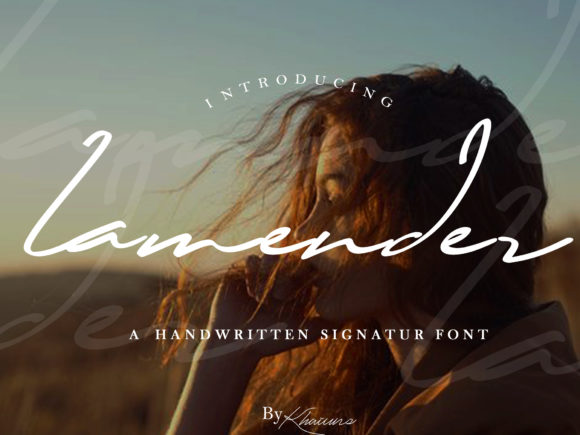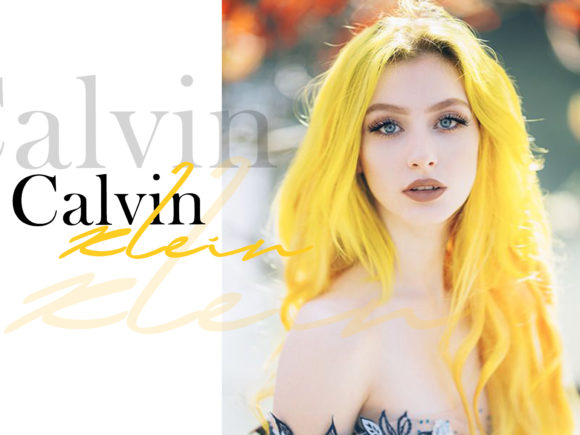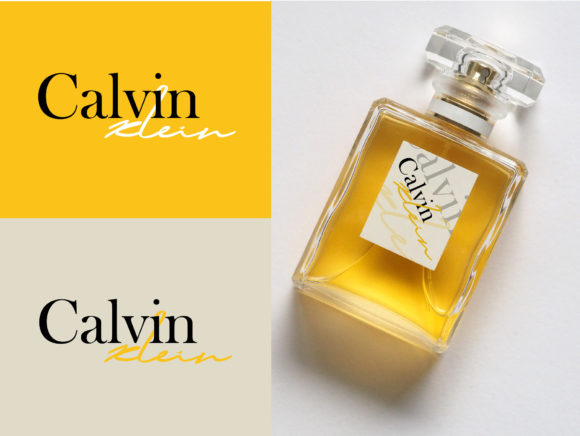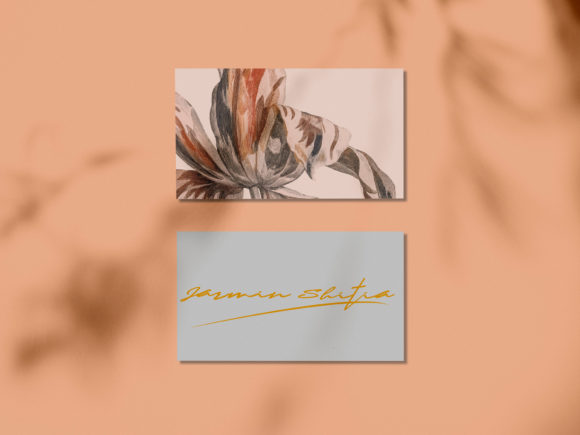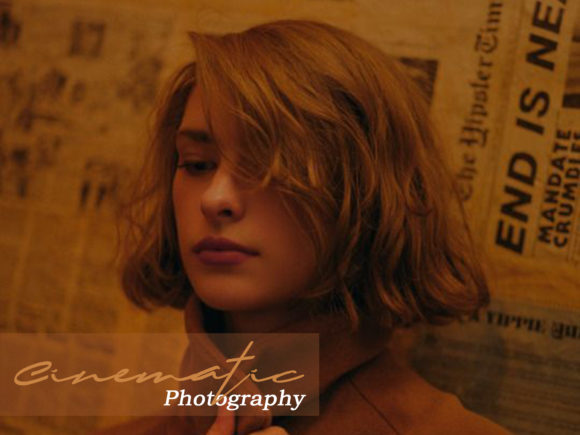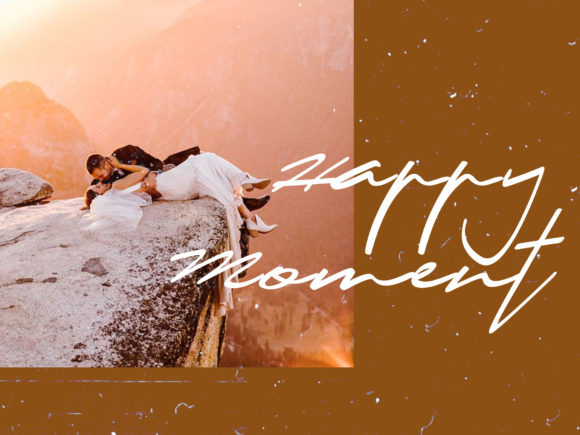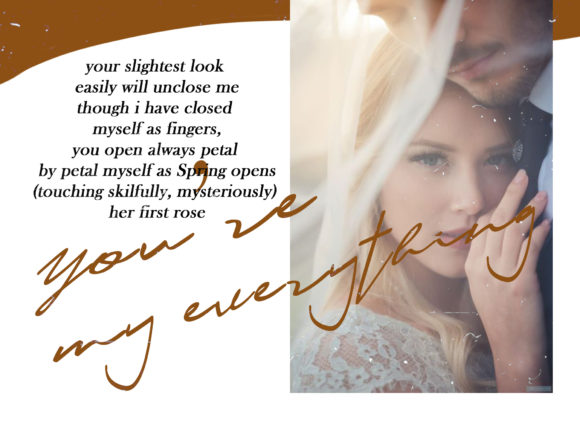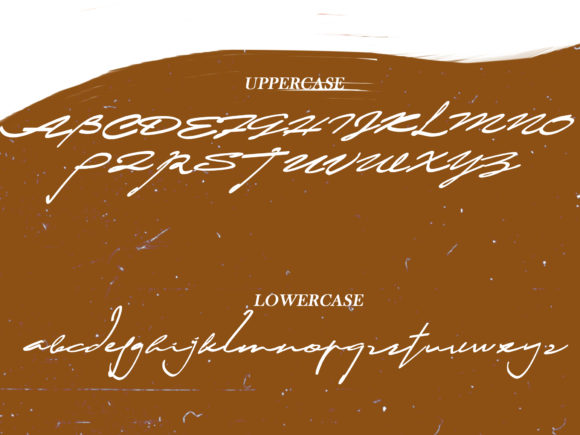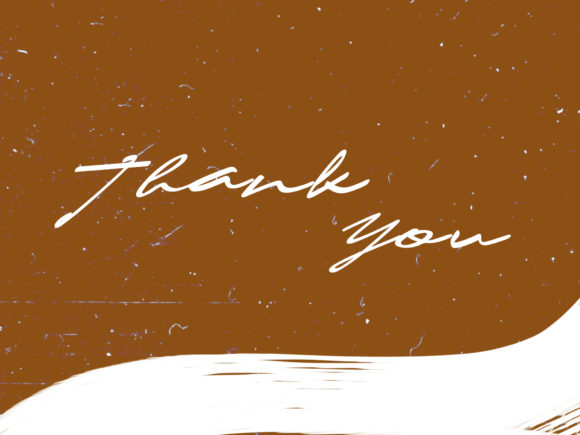
Lamender Font
About Lamender Font
Lamender is a thin and modern handwritten font that will effortlessly add a touch of sophistication to any design project!